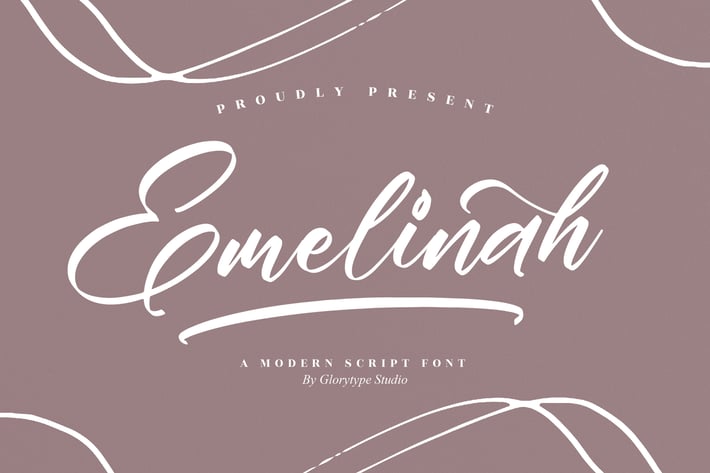
Emelinah Modern Script Font
Emelinah is a modern script with soft, flowing strokes and elegant curves—designed to look effortless yet polished. Its smooth contrast and generous swashes bring a handwritten warmth that reads beautifully at both display and sub-headline sizes. Whether you’re building a refined brand or a cozy personal project, Emelinah adds a graceful, contemporary touch that feels bespoke and intentional.
+ Uppercase & lowercase letters
+ Numbers & punctuation
+ Stylistic alternates & lovely swashes
+ Natural discretionary ligatures
+ Multilingual support
+ Logos & branding systems
+ Wedding suites and invitations
+ Social media posts & Pinterest graphics
+ Product packaging & labels
+ Quote posters, cards & stationery
+ Business cards, flyers & signage
A chic, flowing script that turns simple words into modern elegance.